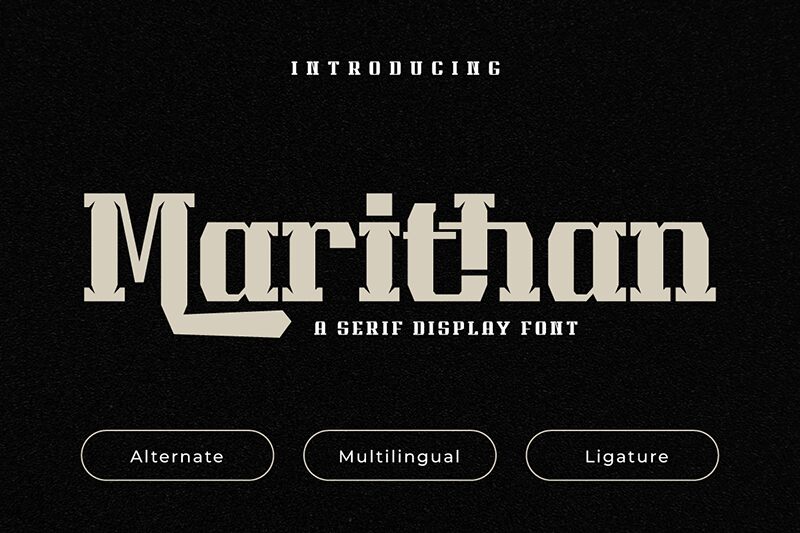
Marithantrial Regular
Marithan font by Twinletter is an ornate decorative bold font with historic influences. This font holds strong roots back to the Victorian era, featuring a formal presentation with sharp bold letterforms that inevitably capture attention. It’s absolutely as striking in big sizes as it is readable and elegant in smaller ones.
Some of the uses where this free display font will perform marvelously include packaging, labels, invites, and book covers. Posters are also another valid possibility along with costumes designs, signages of all sorts, multimedia displays such as televisions intros 등 etc.